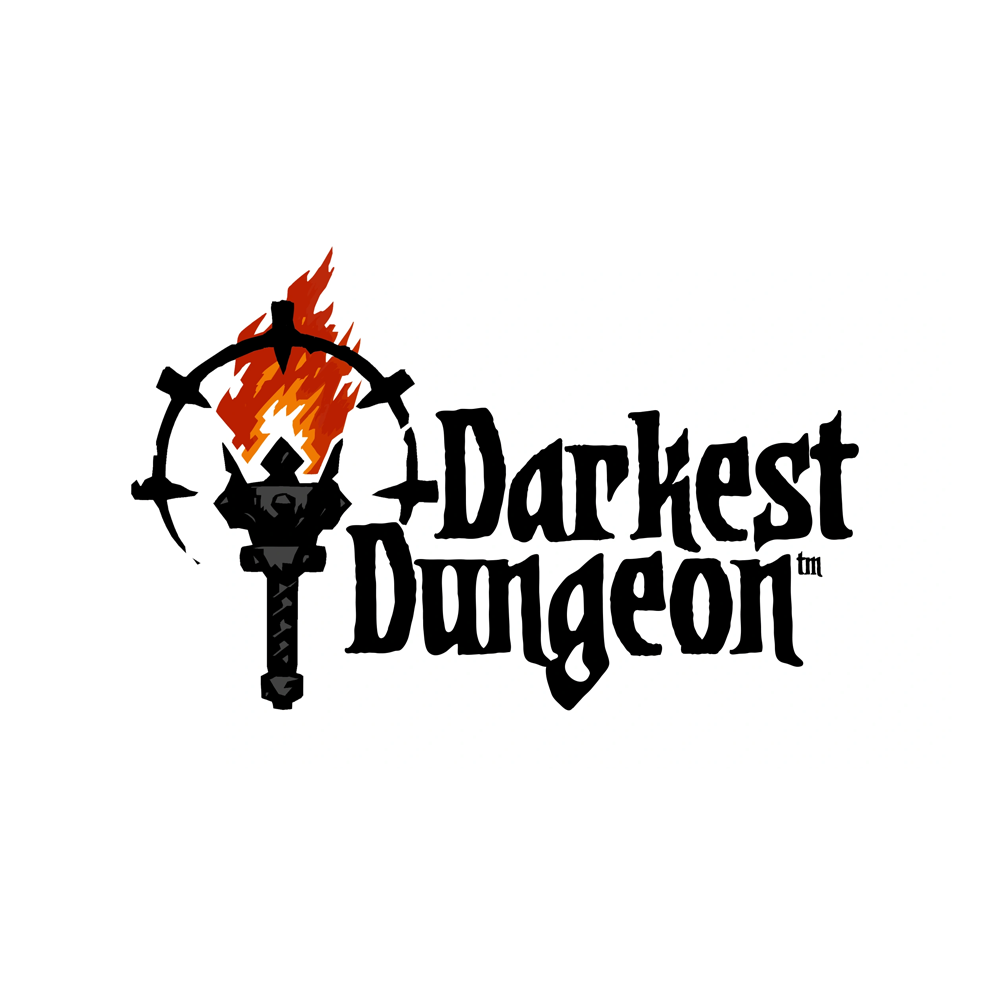
Darkest Dungeon Font
Fonts in UseDarkest Dungeon is a challenging gothic-style, turn-based RPG where players must manage a group of heroes to explore dangerous dungeons and battle against Lovecraftian monsters while managing their physical and mental health.
The video game's logo employs the Dwarven Axe font by Blambot, featuring letters that appear to have been manually condensed or elongated.